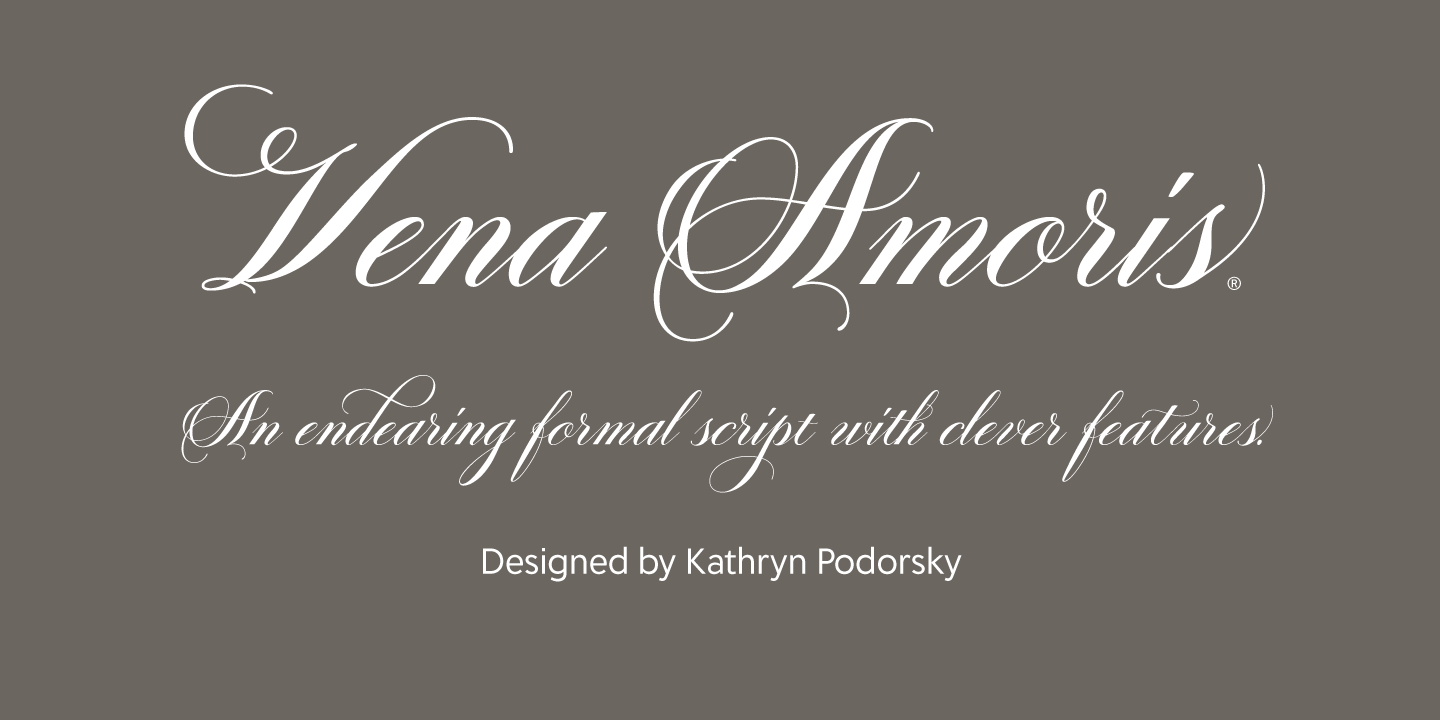
Vena Amoris Font Free Download is an elegant and sophisticated script typeface that combines delicate curves with refined lines to create a timeless design. Perfect for high-end branding, wedding invitations, logos, and creative projects, this font adds a touch of luxury and elegance to any design. Its flowing letterforms and intricate details make it ideal for projects that require a personal, artistic touch. Whether you're crafting a romantic invitation, designing a luxury brand identity, or creating refined marketing materials, Vena Amoris Font Free Download allows you to experiment with its graceful style in personal projects before purchasing a commercial license. Add beauty and class to your designs with this beautifully crafted script font.